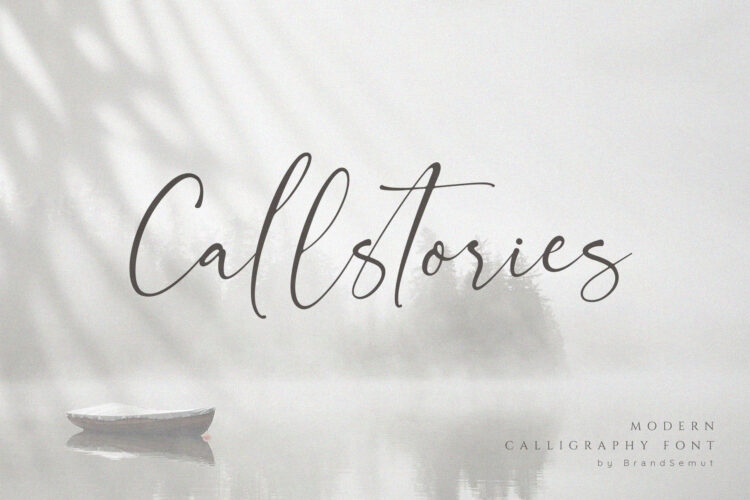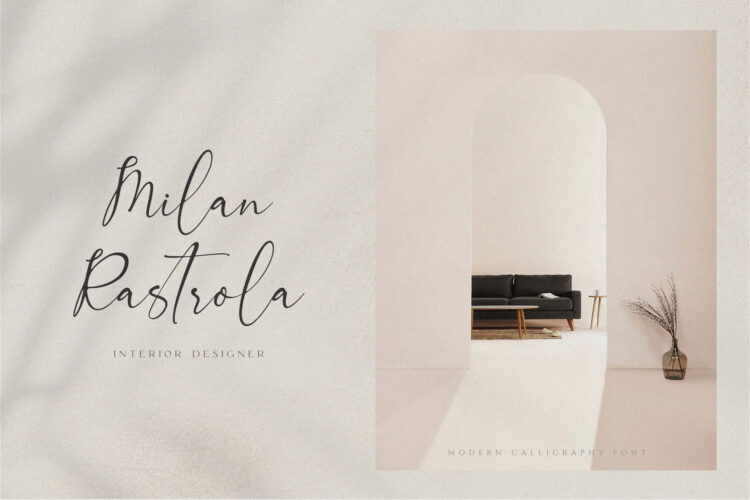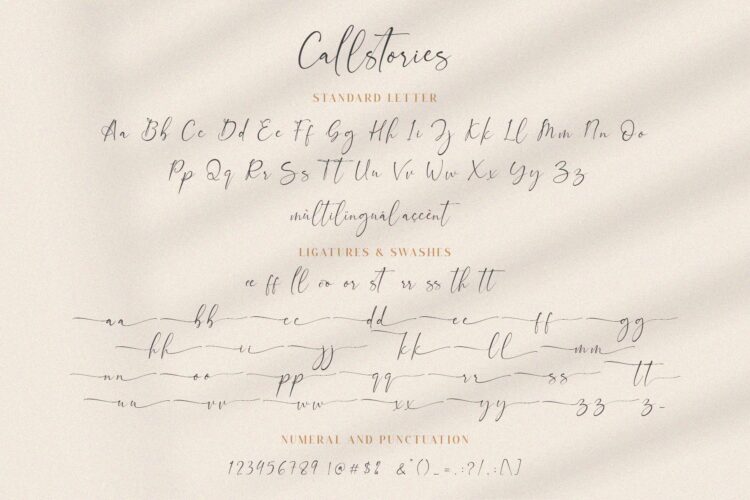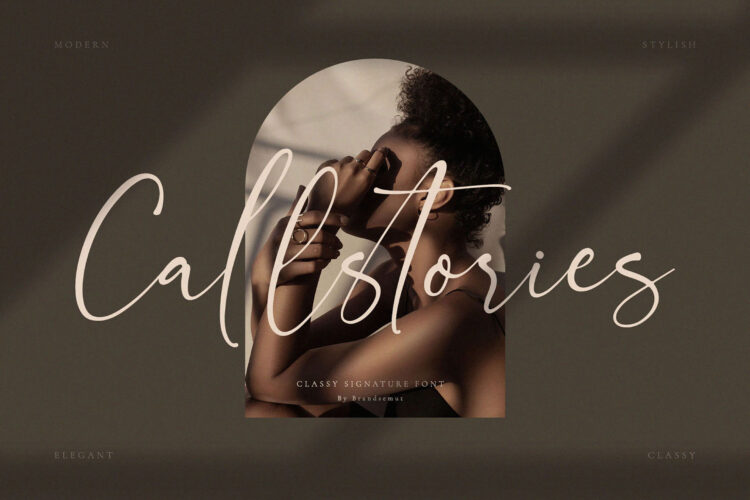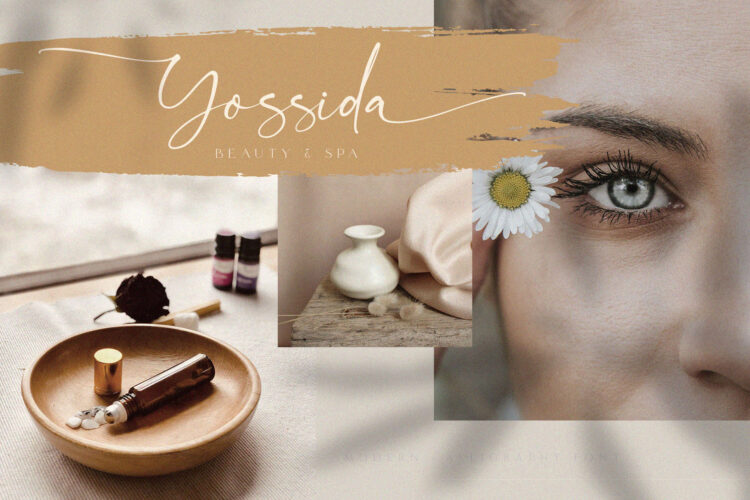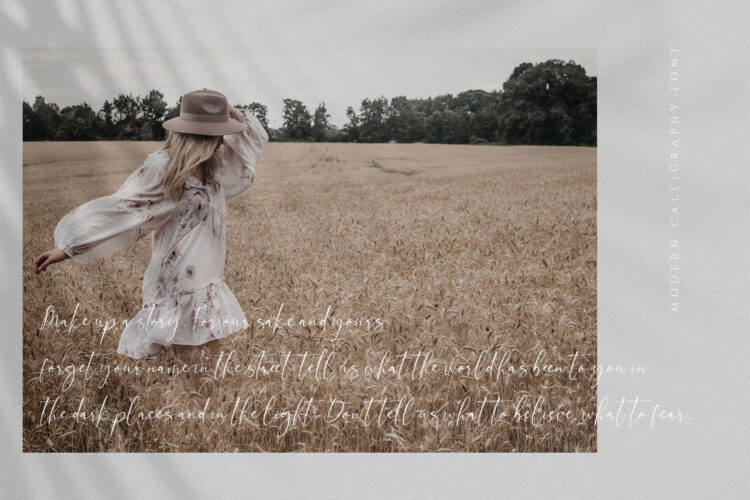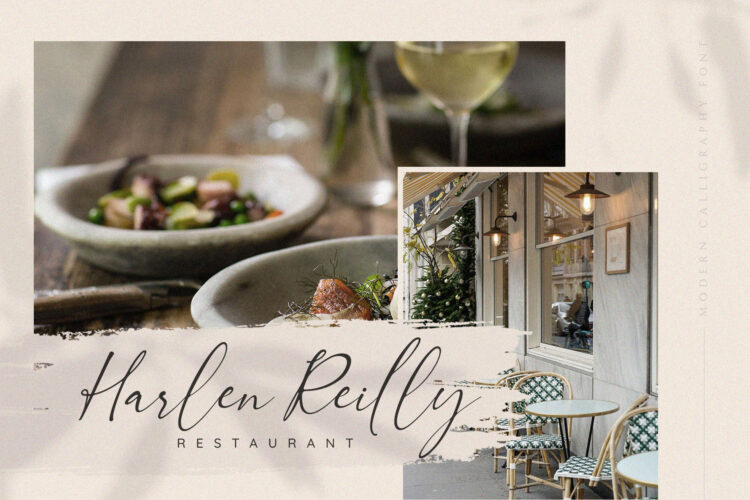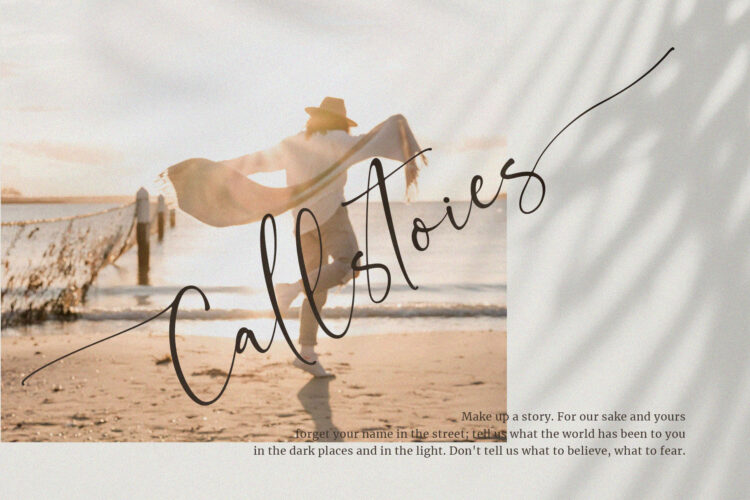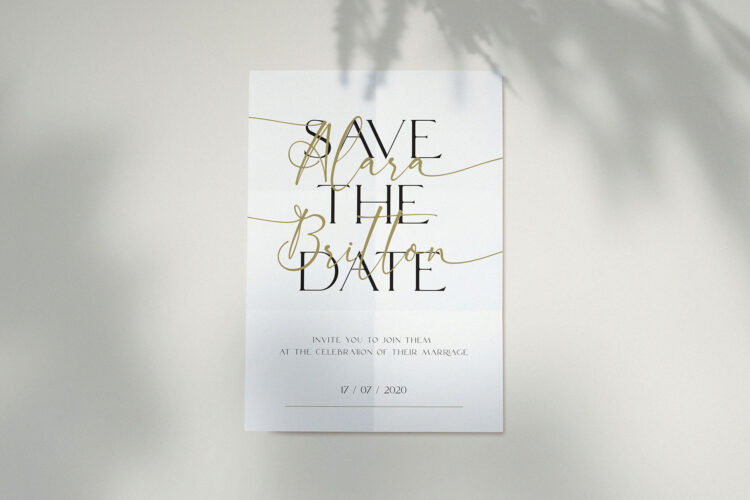
Introducing the new Callstories a modern calligraphy font !!! For those of you who are needing a touch of elegant, chic and modernity for your designs, this font was created for you!
Callstories was built with OpenType features and includes ligatures, alternates, begining and ending swashes, numbers, punctuation, and it also supports other languages.
Callstories – Classy Signature Font